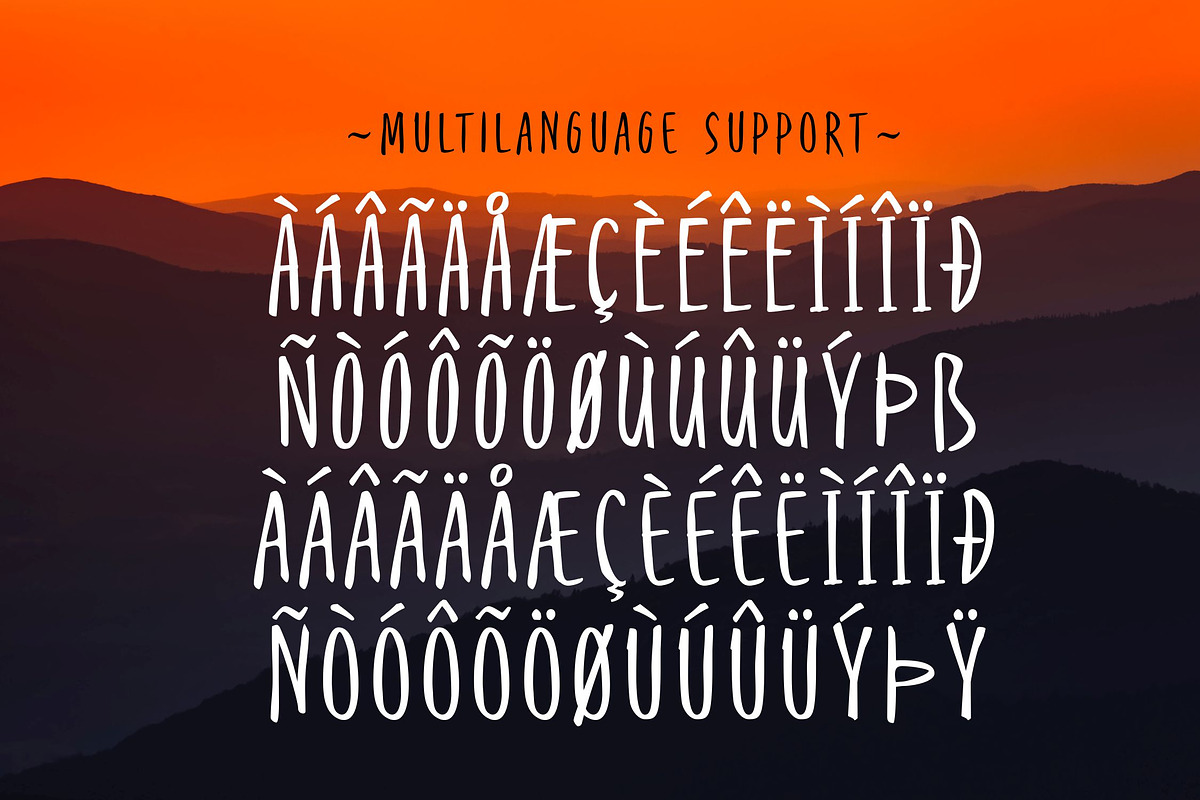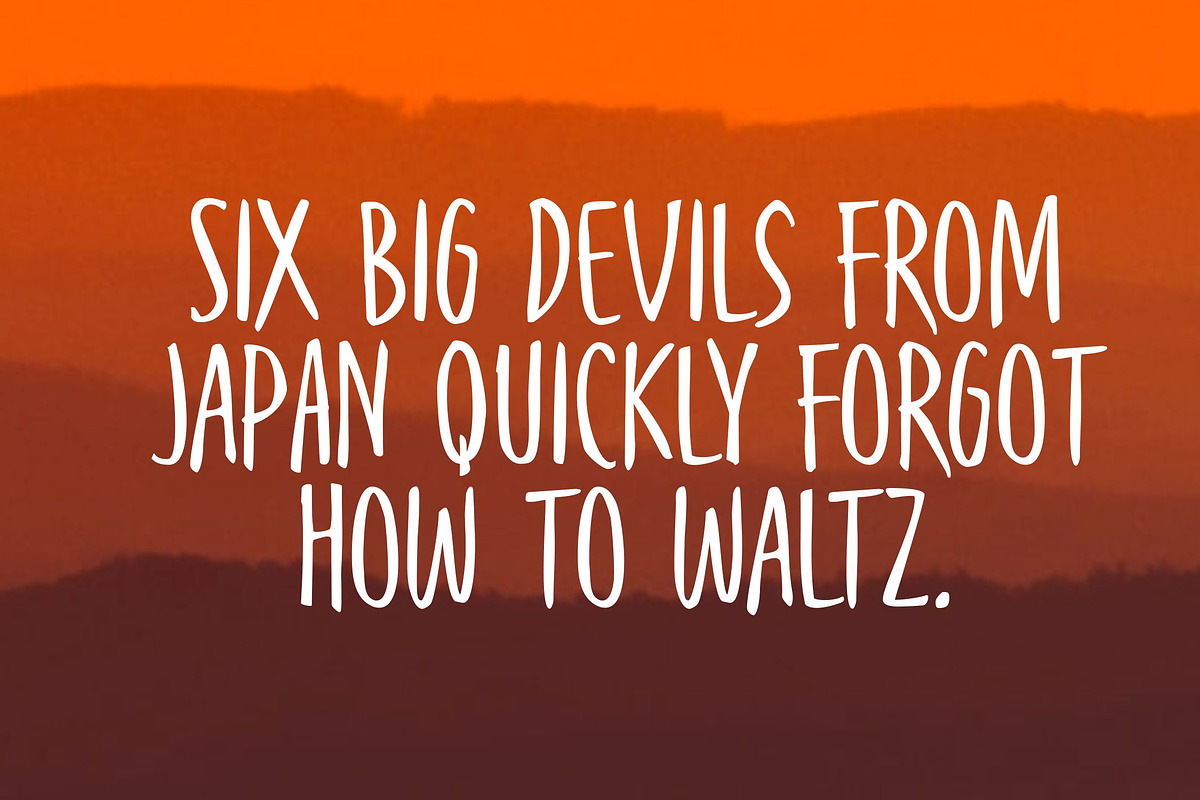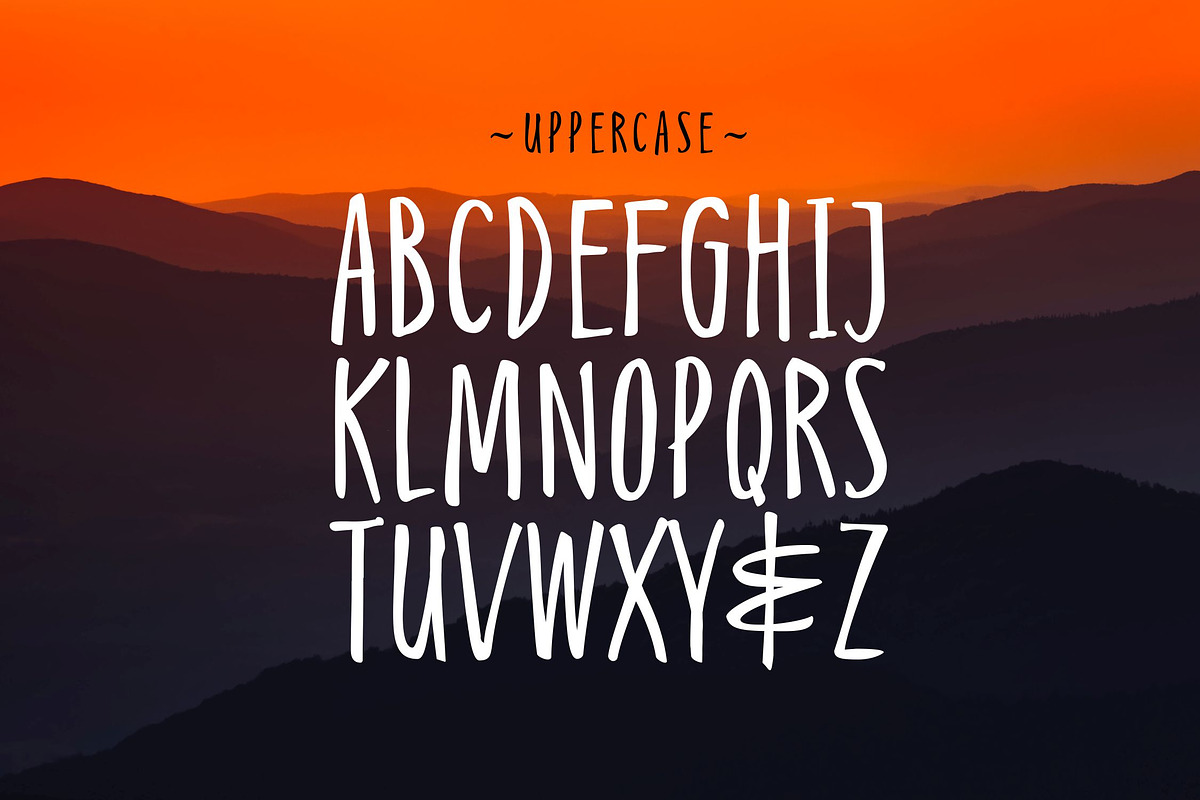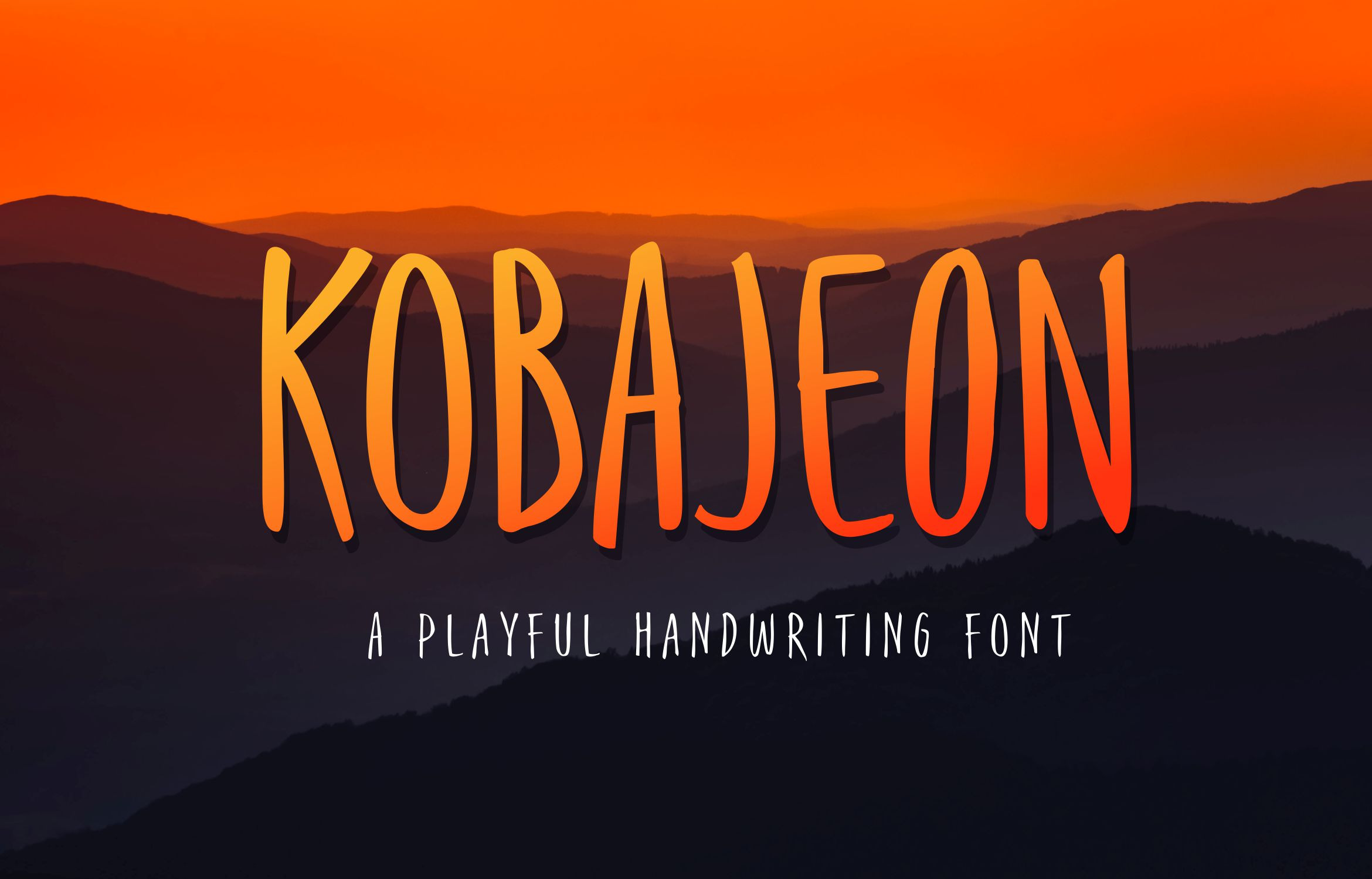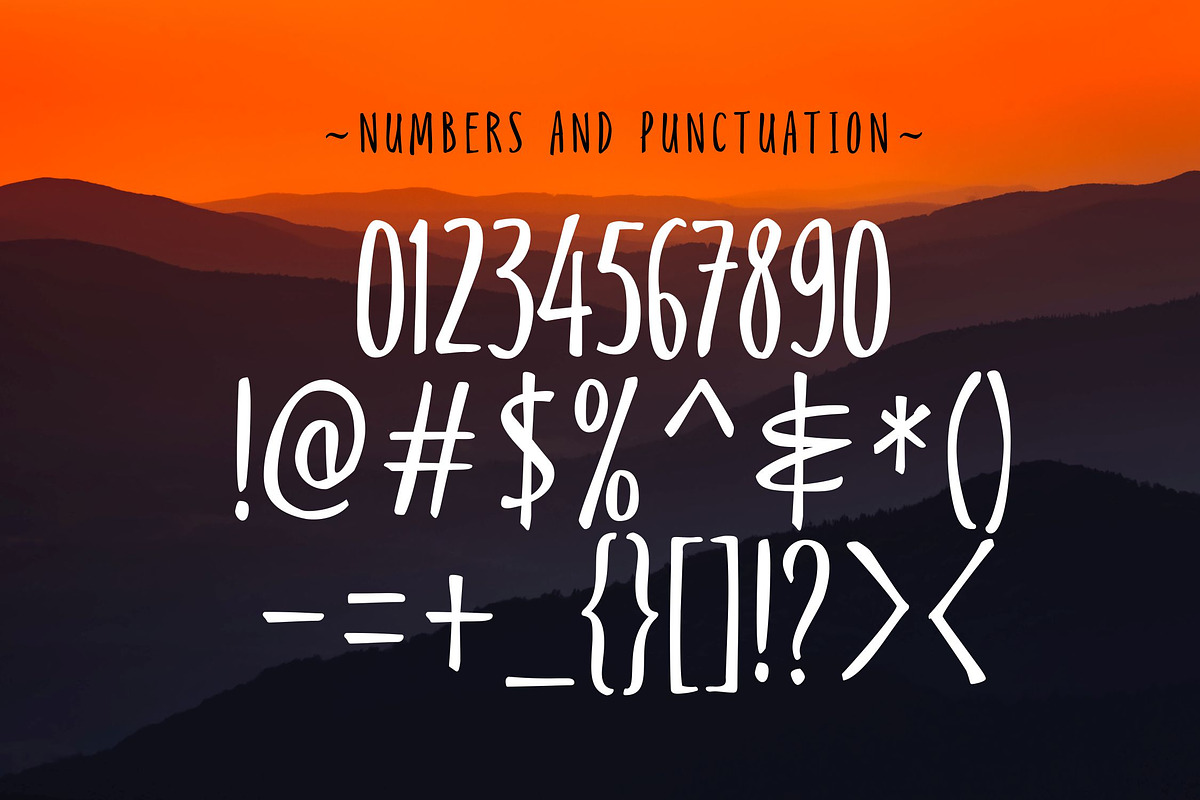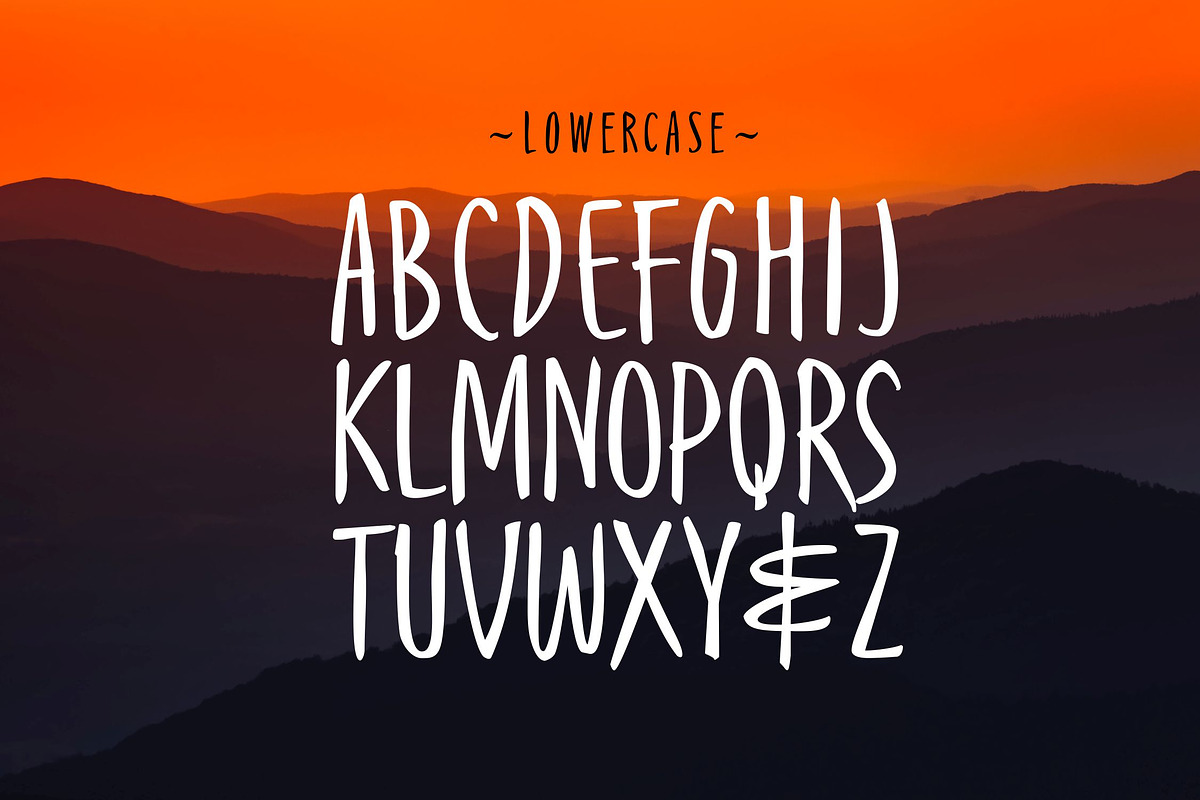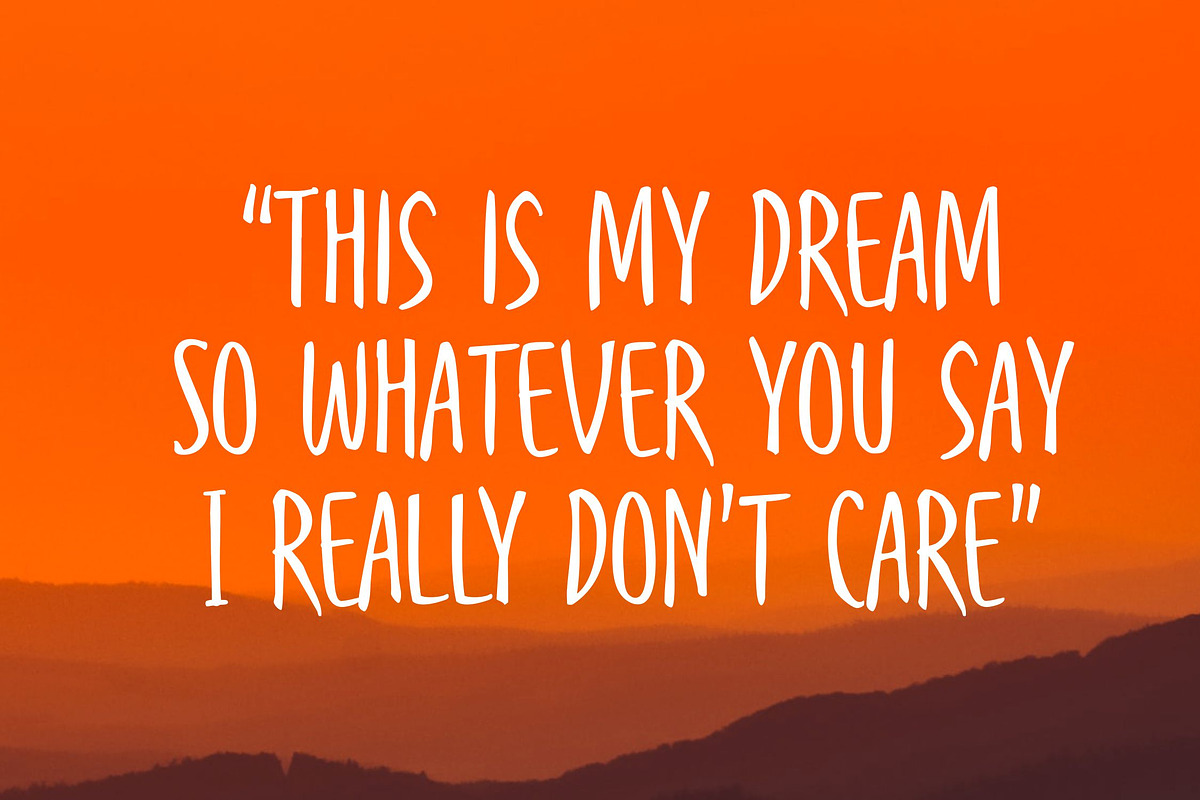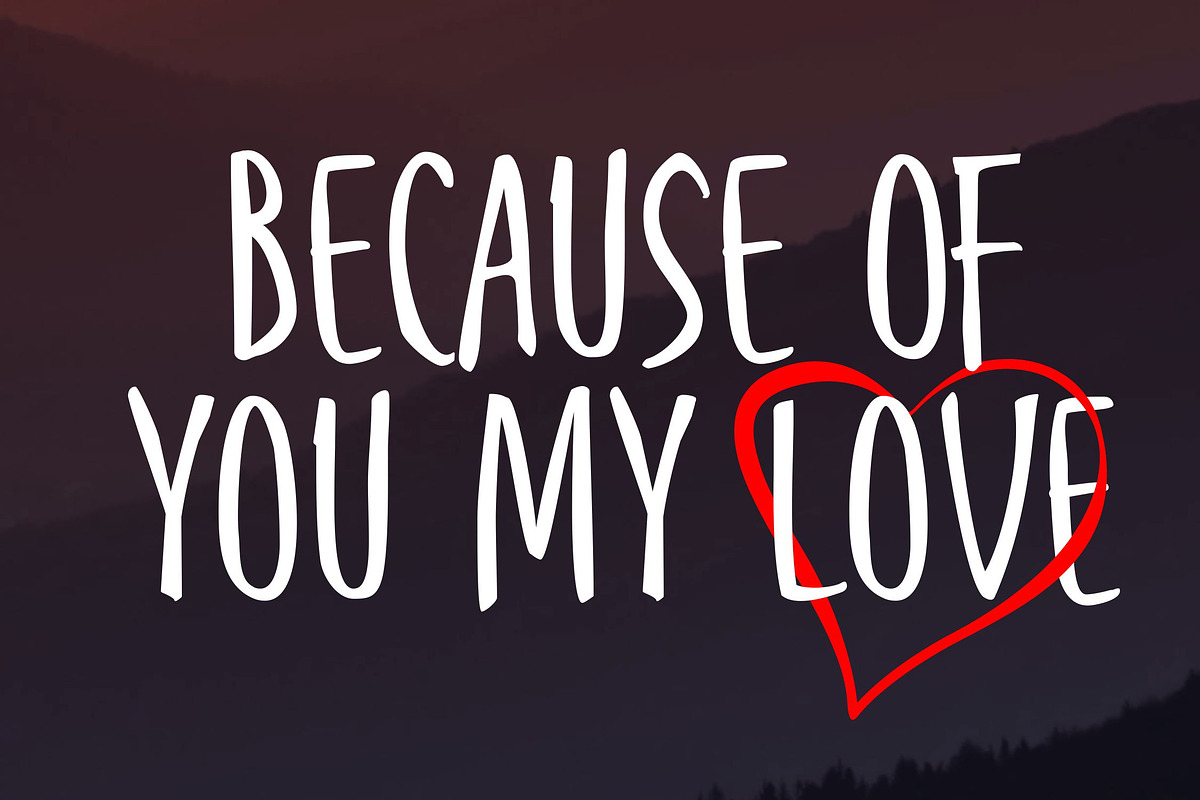
Kobajeon - Handwritten Font
Bring a touch of Japanese-style fun to your designs with Kobajeon, the playful and stylish handwritten font that's perfect for display and title use. With over 200 glyphs to choose from, Kobajeon gives your text a unique and legible handwriting style that's sure to make your designs stand out.
Whether you're working on a poster, logo, or any other project that needs a bit of personality, Kobajeon is the font for you. Its combination of Japanese design elements and playful script makes it the perfect choice for adding a distinctive touch to your designs.